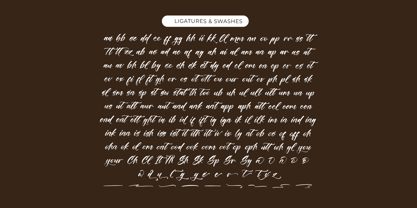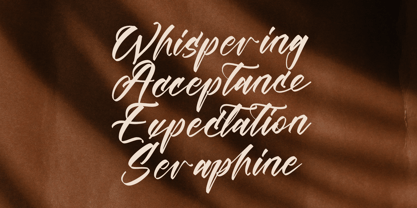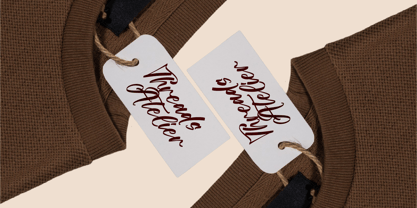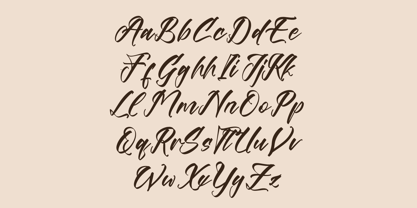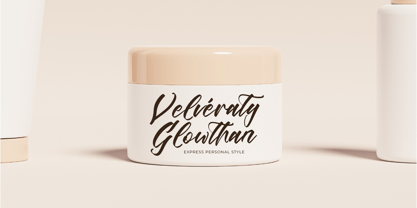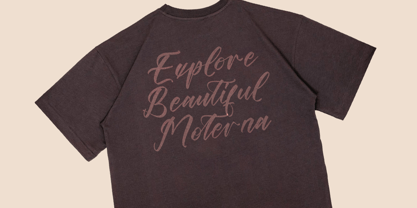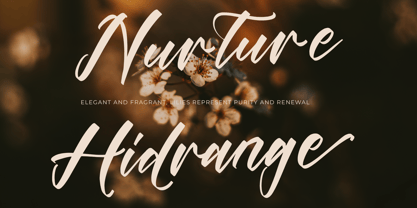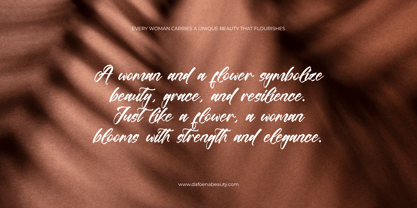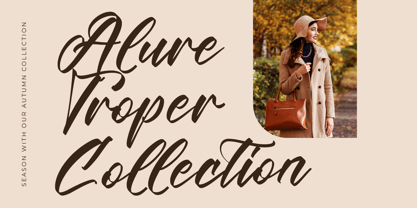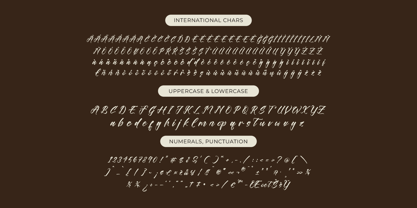
Players Climber
by Stylishtype Studio
The Players Climber Font Family was designed by Heru Utama Putra and published by Stylishtype Studio. Players Climber contains 2 styles and family package options.
Players Climber - Modern Handwritten Font , from Stylishtype, Suitable for any projects such as: logos, branding projects, homeware designs, product packaging, mugs, quotes, posters, shopping bags, t-shirts, book covers, name card, invitation cards, greeting cards, label, photography, watermark, special events, and all your other luxury and beautiful projects that need a Luxury Script taste.